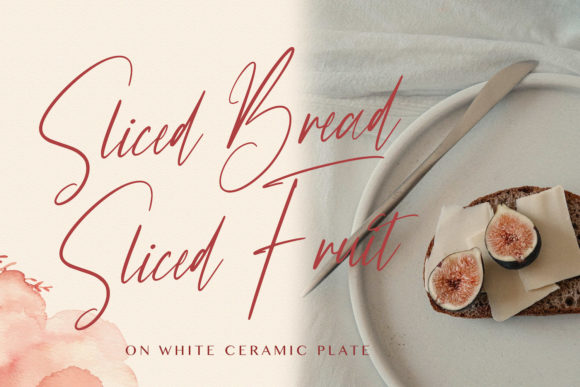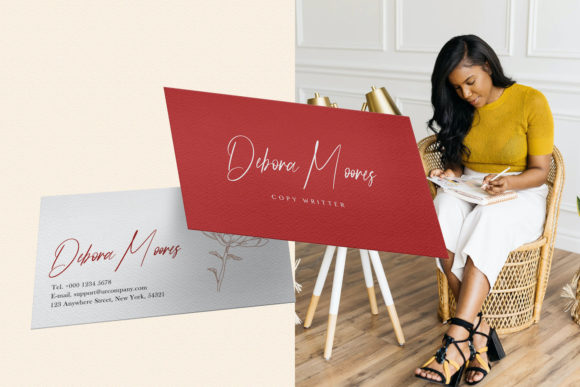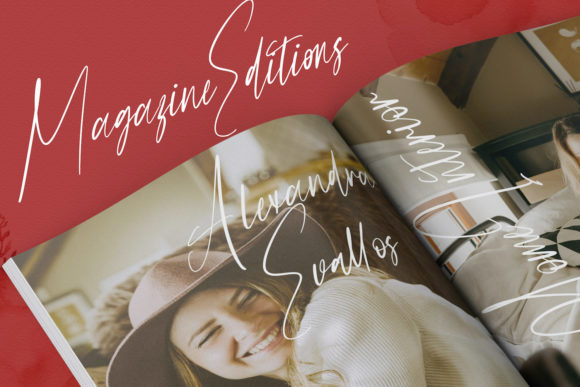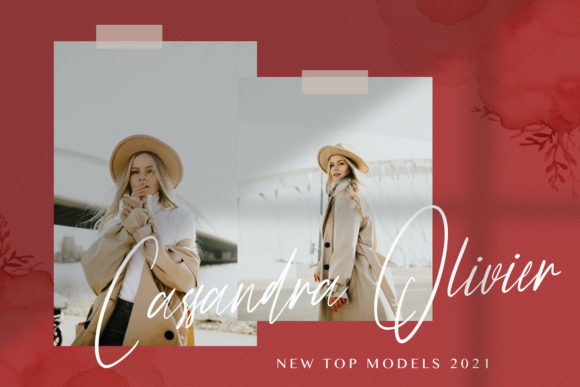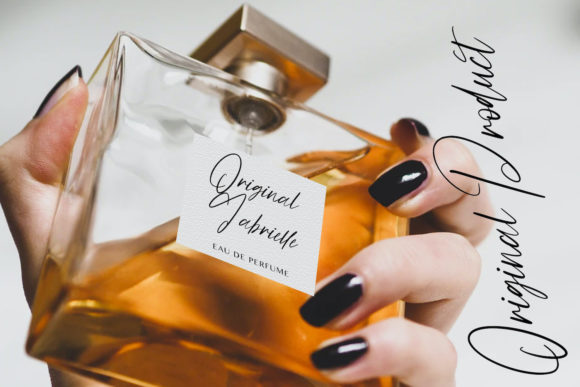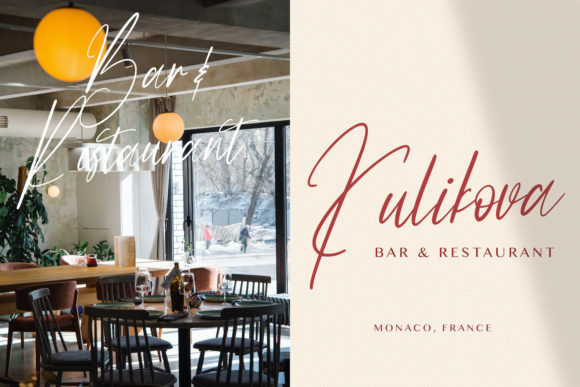
Introduction to Orang Indonesia Font Font
Fonts play a crucial role in design, and the Orang Indonesia Font font is a typeface that brings both character and versatility to any project. Whether you’re working on a branding project, a website, or a print design, the Orang Indonesia Font font offers a unique style that can elevate your work.
Orang Indonesia is a thin lettered, delicate and fashionable script font.
It will add a luxury spark to any design project that you wish to create This font is neatly crafted and highly detailed.
Key Features of Orang Indonesia Font Font
Why Choose Orang Indonesia Font Font?
The Orang Indonesia Font font is more than just a typeface – it’s a design tool that helps you communicate your message with style and clarity. Its unique character set and versatile design make it suitable for a wide range of applications, from elegant invitations to bold headlines.
With its carefully crafted letterforms and balanced proportions, the Orang Indonesia Font font ensures readability and visual appeal across all mediums.
What makes Orang Indonesia Font font special?
The Orang Indonesia Font font stands out with its unique design, exceptional readability, and versatility across various design applications.